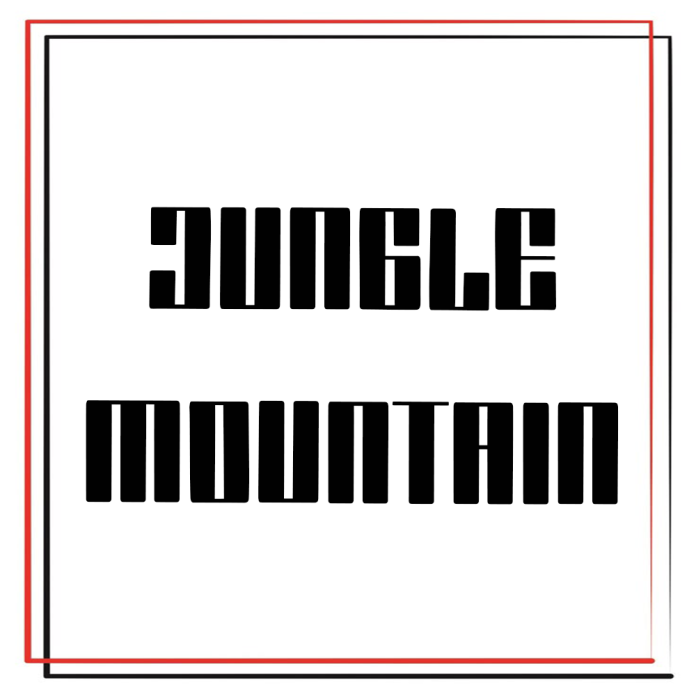
Jungle Mountain Font is a cute and casual handwritten font with an incredibly friendly feel. Whether you’re looking for fonts for Instagram or calligraphy scripts for DIY projects, this font will turn any creative idea into a true piece of art!